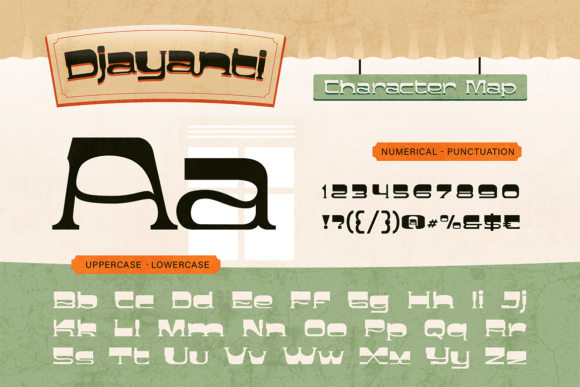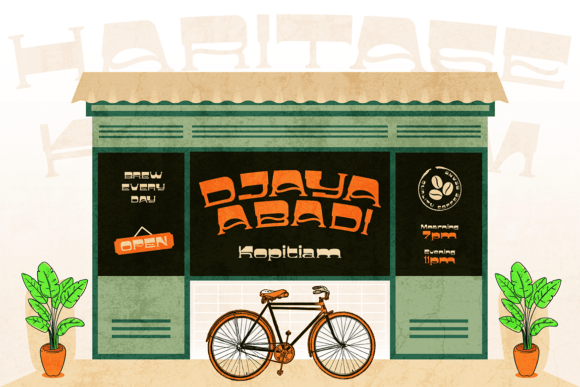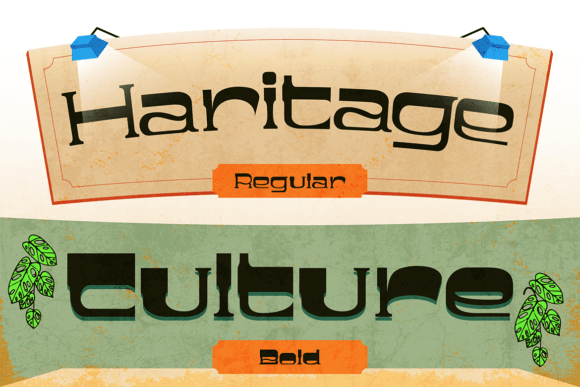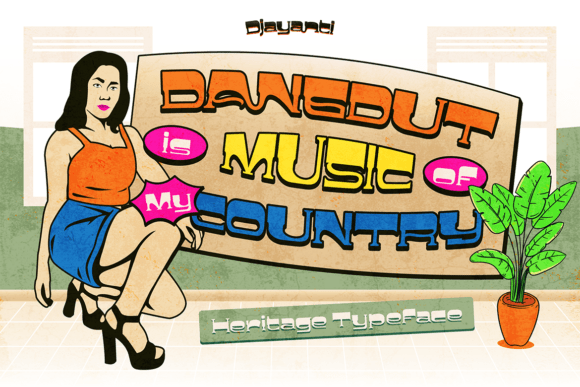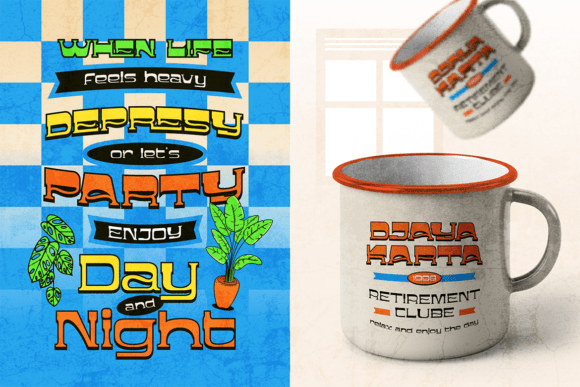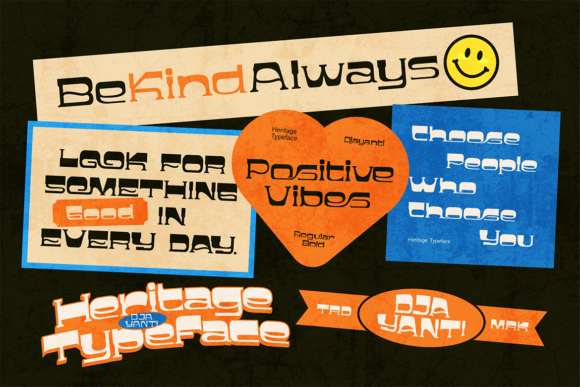
Djayanti Font: A Bold Heritage-Inspired Typeface for Modern Design
In the world of typography, few fonts manage to strike a balance between traditional heritage and modern style. Djayanti Font is one such exceptional typeface that seamlessly blends the classic charm of Southeast Asian signage with a fresh, contemporary twist. This bold, heritage-inspired font is perfect for designers and crafters looking to add a touch of local flavor and personality to their projects.
The Inspiration Behind Djayanti
Djayanti draws inspiration from the traditional signage found in Southeast Asia, particularly in the region’s vibrant kopitiams (coffee shops) and street food stalls. The font’s creator aimed to capture the retro essence of these classic establishments while infusing it with a modern, editorial look that feels right at home in today’s design scene.
Unique Characteristics of Djayanti
So, what sets Djayanti apart from other fonts? Here are some of its unique characteristics:
- Retro-Kopitiam Charm: Djayanti carries the nostalgic charm of traditional Southeast Asian signage, evoking memories of old-school coffee shops and street food stalls.
- Fresh, Modern Twist: Despite its heritage inspiration, Djayanti boasts a stylish, modern look that feels fresh and contemporary.
- Unique Letter Curves: The font features distinctive letter curves that add to its personality and character.
- Playful Cut-Ins: Djayanti’s playful cut-ins add a touch of whimsy and playfulness to any layout.
- Quirky Rhythm: The font’s slightly quirky rhythm makes it perfect for designs that require a bit of personality and flair.
Versatility of Djayanti
Djayanti is an incredibly versatile font that can be used in a wide range of design projects, including:
- Café Branding: Add a touch of local flavor to your café’s branding, menus, and packaging.
- Nostalgic Posters: Create eye-catching posters that evoke a sense of nostalgia and retro charm.
- Travel Journals: Use Djayanti to add a personal touch to travel journals and scrapbooks.
- Vintage-Inspired Packaging: Give your packaging a unique, heritage-inspired look that stands out on store shelves.
Font Variations and Usage
Djayanti comes in two font variations: Regular and Bold. This makes it super flexible for use in various design applications, such as:
- Headlines: Use the Bold variation to create attention-grabbing headlines that make a statement.
- Quotes: Add emphasis to quotes and testimonials with the Bold variation.
- Logos: Use Djayanti to create unique, heritage-inspired logos that reflect your brand’s personality.
- Menus: Add a touch of local flavor to menus and food packaging with the Regular or Bold variation.
Why Choose Djayanti?
If you’re looking for a font that:
- Is expressive and full of personality
- Carries a sense of local flavor and cultural heritage
- Is clean and modern enough for contemporary layouts
then Djayanti is your new design staple. This exceptional font is perfect for designers and crafters seeking to add a unique touch to their projects.
In conclusion, Djayanti Font is a bold, heritage-inspired typeface that brings a fresh, modern twist to traditional Southeast Asian signage. With its unique characteristics, versatility, and font variations, Djayanti is an excellent choice for designers and crafters looking to add personality and local flavor to their projects. Make Djayanti your go-to font for your next design project and experience the perfect blend of heritage and modern style.